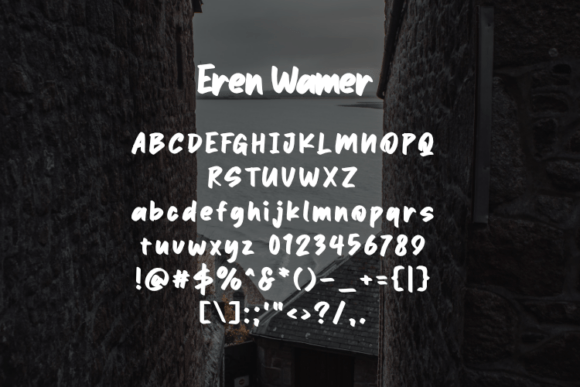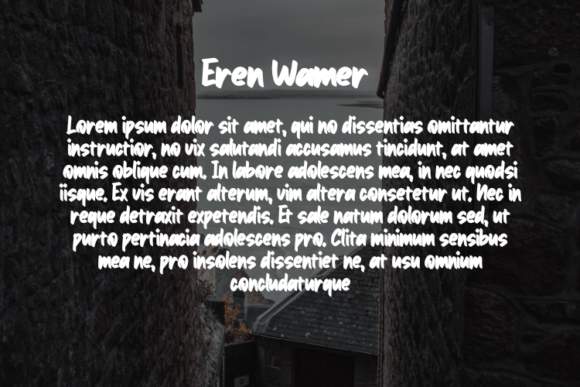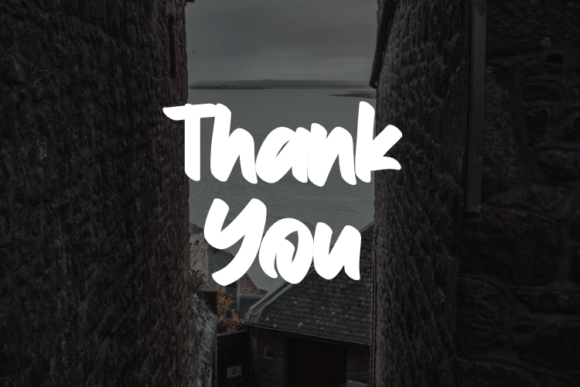
Introduction to Eren Wamer Font
Imagine you’re working on a creative project, pouring your heart and soul into every detail, and then – the perfect font pops up. It’s like a ray of sunshine breaking through the clouds, elevating your design from ordinary to extraordinary. For designers, this moment is priceless. And that’s exactly what Eren Wamer Font promises to deliver – a game-changing design experience that will leave your audience mesmerized.
Whether you’re designing clothing and t-shirt labels or working on other product designs, Eren Wamer Font is the perfect addition to your design arsenal. Its unique character set, available in a versatile OTF file format, seamlessly integrates with your preferred design software, making it a valuable resource for any creative project.
What sets Eren Wamer Font apart is its harmonious blend of elegance and robustness, which lends sophistication to any design it’s part of. With its high-quality aesthetic, you can take your designs to unprecedented heights, and that’s exactly what makes it a must-have design resource for designers of all levels.
Key Features of Eren Wamer Font
- Unique, hand-drawn design with a modern twist, ideal for creative projects.
Honest Review: Eren Wamer Font
I recently stumbled upon the Eren Wamer Font while searching for a unique design resource for my creative project. I was excited to see if this font would live up to its potential.
- Unique and stylish design that adds a touch of elegance to any project
- Wide range of applications, from digital to print media
However, there are a few limitations to consider: ⚠️ Limited font size options, ⚠️ not suitable for large blocks of text, and ⚠️ may not be compatible with all operating systems.
Overall, I’m impressed with the Eren Wamer Font’s design and versatility. While it may have some limitations, it’s a great addition to any designer’s toolkit, especially for creative projects that require a unique touch.
Tips for Getting the Most Out of Eren Wamer Font
Experiment with different font sizes and colors to create a unique and eye-catching design. Use the font in combination with other design elements, such as images and graphics, to add depth and interest to your project.
The Eren Wamer Font is suitable for a variety of creative projects, including social media graphics, flyers, posters, and presentations. Use this font to add a touch of sophistication and style to your designs.